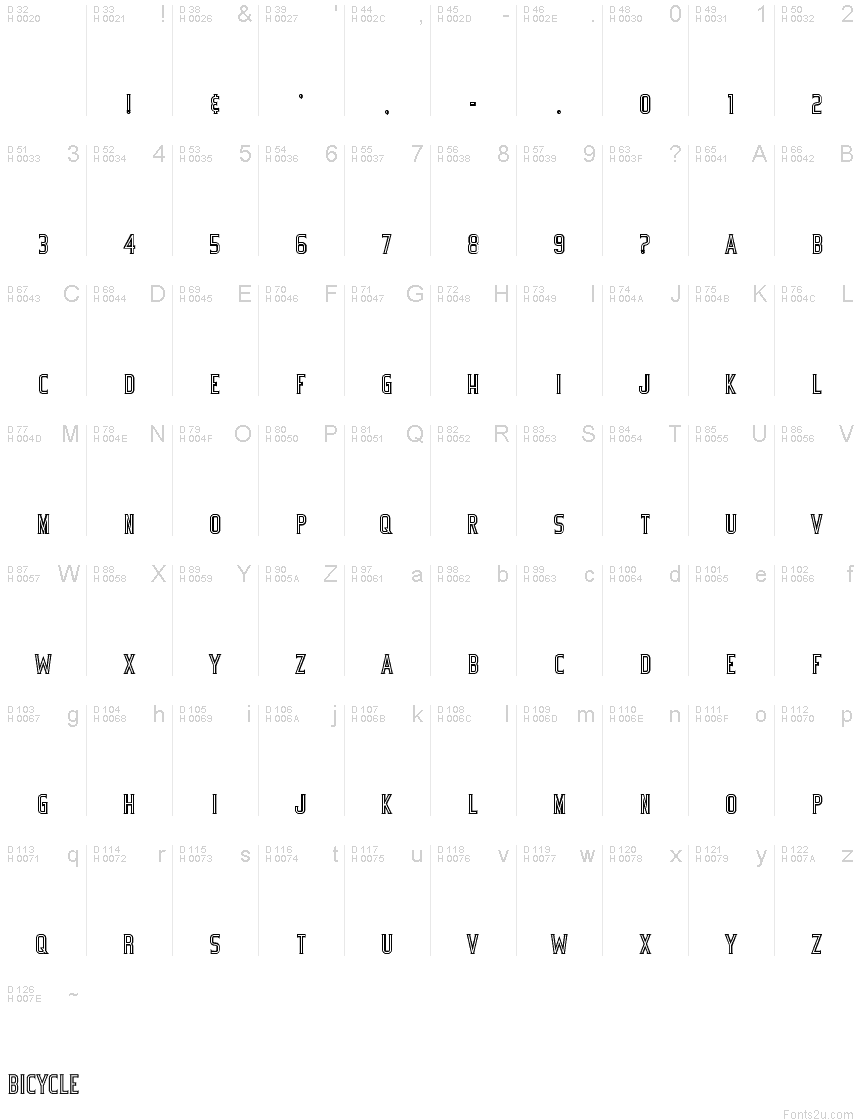
Bicycle
Bicycle font wraps each letter in a bold outline with a hollow interior, giving the word a sturdy yet airy feel. The squared curves, tight geometry, and rhythm of repeating strokes create a strong, poster-ready presence that remains easy to read at a glance. It’s a free font that feels built for attention-grabbing headings and confident branding.
This free font is especially at home in sports logos, event posters, retro-inspired packaging, signage, book covers, and bold web banners. Bicycle holds its shape nicely at large sizes, while the open interiors keep it from feeling too heavy. For text blocks or small captions, pair it with a simple sans serif to let its outlined forms take center stage.